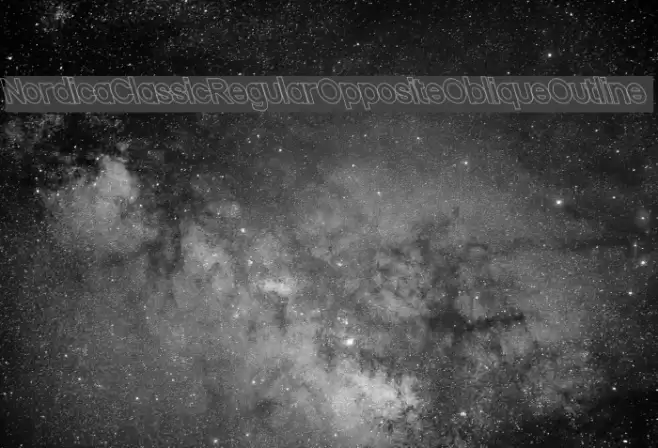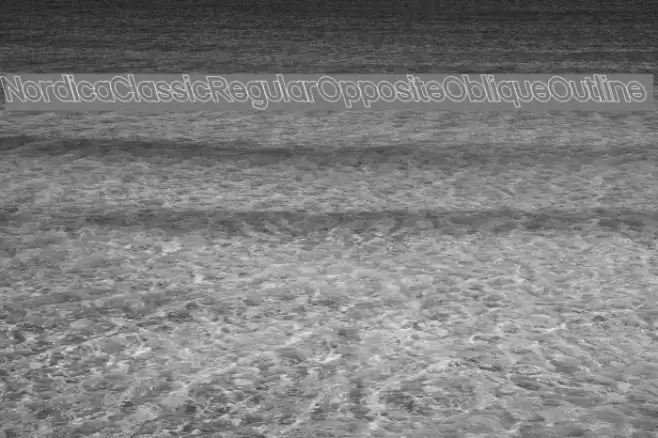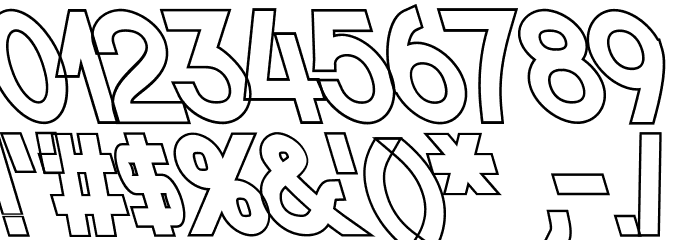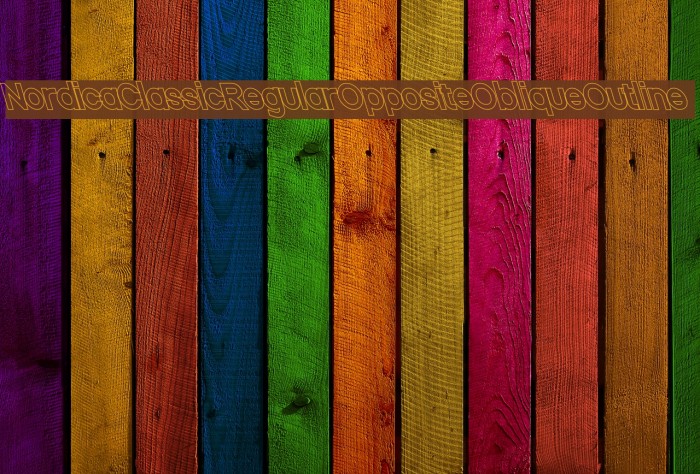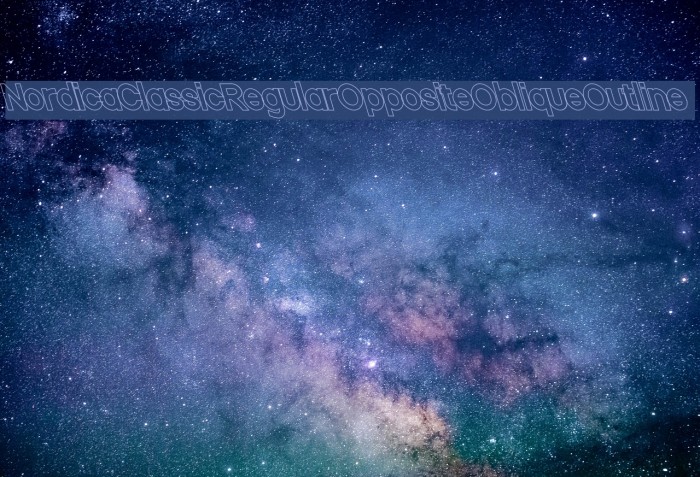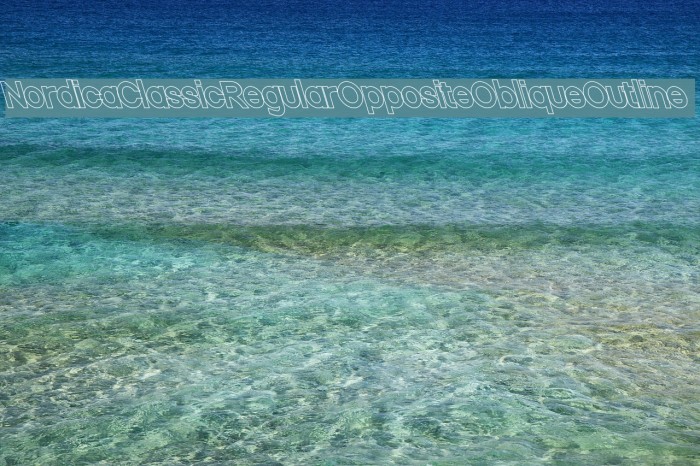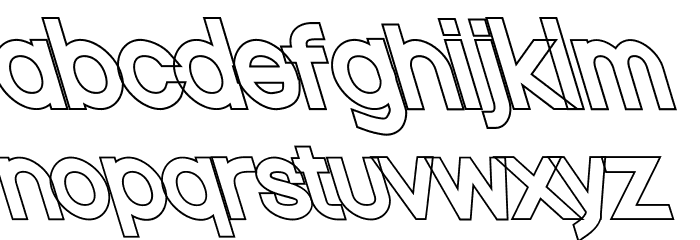
Nordica Classic Regular Opposite Oblique Outline Font
Nordica Classic Regular Opposite Oblique Outline Description
This font features a bold and modern outline style with a distinct oblique slant, giving it a dynamic and contemporary appearance. The uppercase and lowercase letters are well-proportioned, maintaining a consistent thickness throughout the characters. The numerals and special characters follow the same design principles, ensuring uniformity across all glyphs. The font's outline nature makes it stand out, ideal for creating eye-catching designs. Its geometric shapes and clean lines contribute to a sleek and professional look, suitable for various creative applications.
A bold, modern outline font with an oblique slant and geometric shapes from Uncategorized fonts.